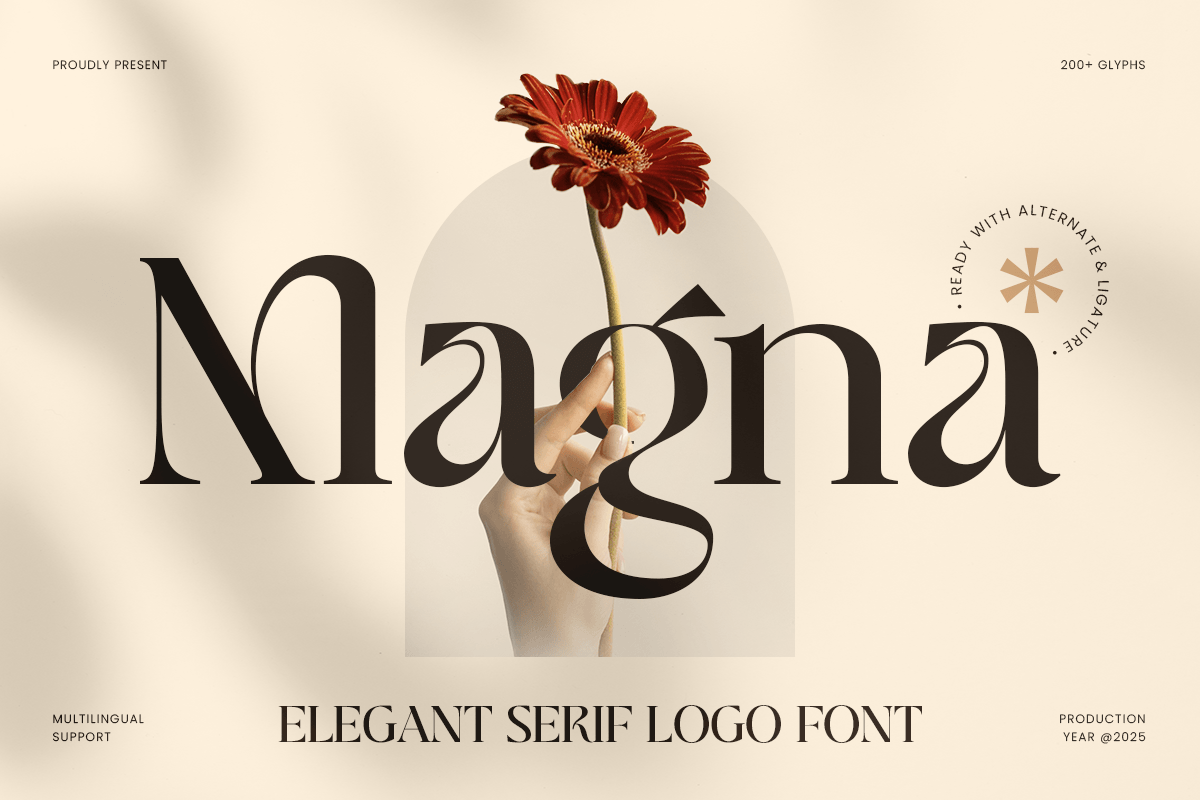
Magna
-Elegant Serif Logo Font
Magna
Magna - Elegant Serif Logo Font
Magna is an elegant serif logo font designed to create sophisticated and memorable brand identities. With graceful serif details, balanced proportions, and a timeless visual style, this typeface is perfect for luxury logos, fashion branding, editorial layouts, premium packaging, and high-end creative projects.
Crafted for designers who seek a refined and professional typographic style, Magna combines classic serif elegance with modern aesthetics. Its polished letterforms bring confidence and sophistication to every wordmark, headline, and brand composition.
Whether used for fashion labels, beauty products, boutique identities, wedding stationery, or premium lifestyle brands, Magna delivers a luxurious and versatile appearance across both print and digital media.
Magna – Elegant Serif Logo Font Features
• Elegant serif design with premium logo branding appeal
• Perfect for logos, packaging, editorials, and luxury identities
• Refined letterforms with timeless sophisticated details
• Ideal for fashion, beauty, wedding, lifestyle, and boutique brands
• OpenType features for enhanced typographic styling
Create a timeless and elegant identity with Magna – the perfect serif logo font for luxury branding, premium packaging, and sophisticated design. ✨